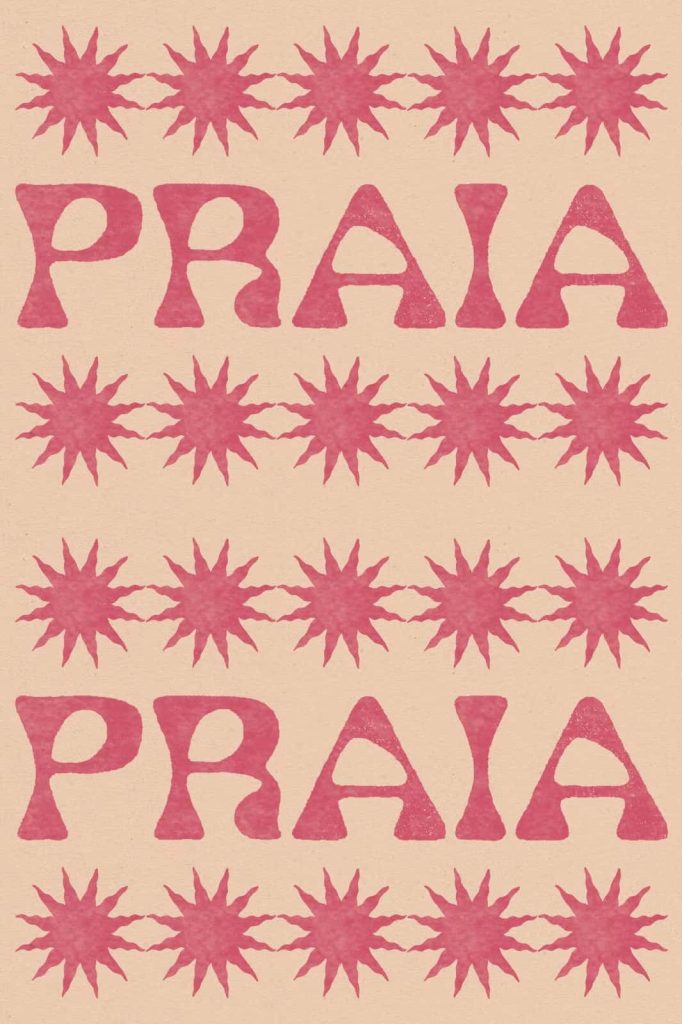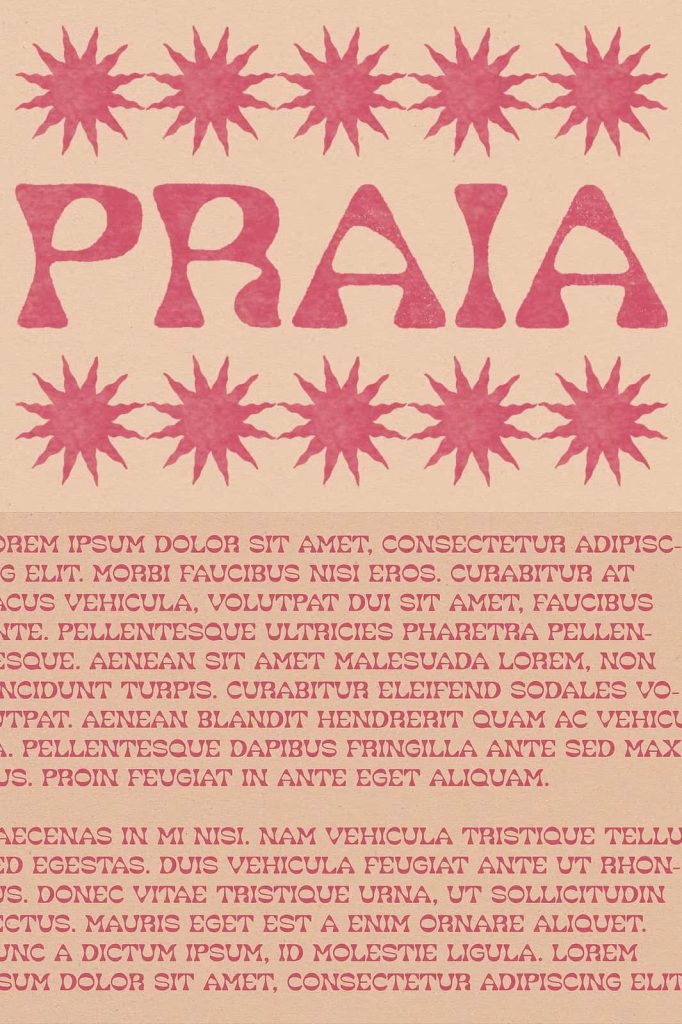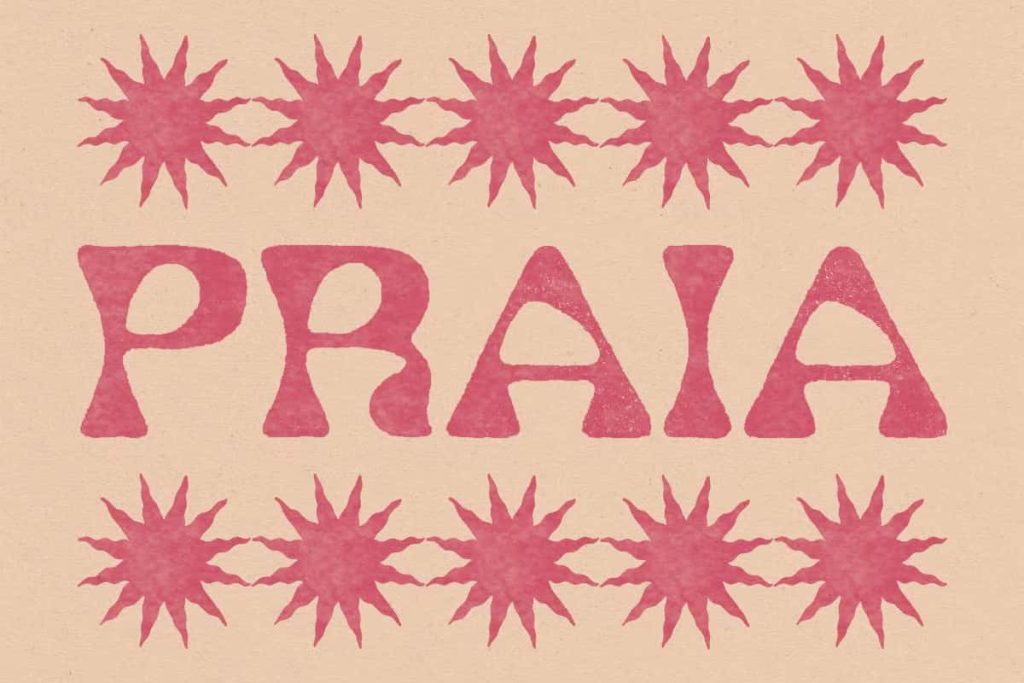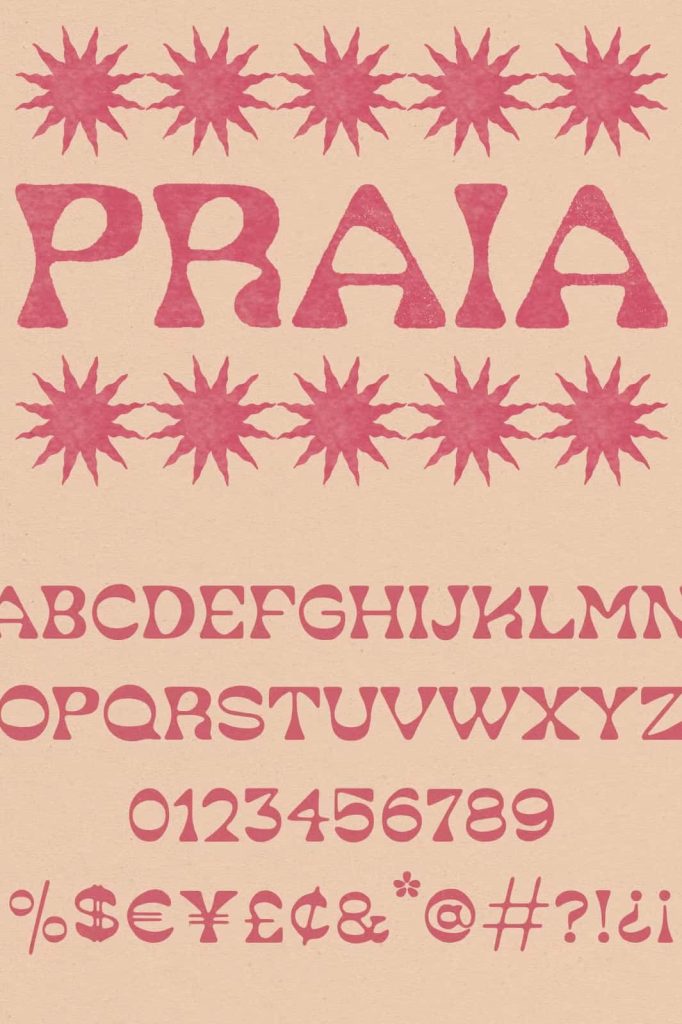
Praia Typeface: A Wavy Display Font Inspired by the Ocean
Praia Typeface captures the rhythm, movement, and calm beauty of the sea through its fluid and wavy letterforms. Inspired by the gentle ripples of water on a perfect beach day, this typeface brings a relaxed yet expressive energy into typography. Designers can use Praia to create visuals that feel light, natural, and effortlessly stylish.
This font does more than present text. It evokes a mood. Each letter reflects the motion of waves, creating a sense of flow that feels both organic and visually engaging. Praia transforms simple words into a design element that carries atmosphere and emotion.
What Makes Praia Typeface Unique?
Praia stands out because it embraces movement and contrast. The letterforms do not follow rigid lines. Instead, they curve and shift in a way that mimics the natural rhythm of water. This approach creates a dynamic visual effect that immediately draws attention.
The typeface also balances playfulness with structure. While the shapes feel free and fluid, they remain readable and cohesive. This combination allows designers to use Praia in a wide range of creative projects without sacrificing clarity.
Key Characteristics
- Wavy letterforms inspired by ocean ripples
- Fluid and organic shapes with natural movement
- Balanced contrast for readability and style
- Relaxed and playful visual tone
- Strong display presence for creative typography
A Typeface Inspired by Coastal Life
Praia reflects the feeling of spending time by the sea, where time slows down and creativity flows freely. The design captures the essence of beach culture, from sunlit afternoons to quiet moments by the shore. It invites designers to create work that feels open, relaxed, and full of character.
You can imagine this typeface on the sign of a small beach café, tucked away in a remote location. A place that opens when it feels right and serves whatever is fresh and available. This imagery adds personality to the font and makes it ideal for storytelling through design.
Why Beach-Inspired Fonts Work
- Evokes calm, freedom, and creativity
- Adds personality and atmosphere to designs
- Creates a connection with natural elements
- Enhances visual storytelling through mood
Best Use Cases for Praia Typeface
Praia works best in projects that aim to capture attention while maintaining a relaxed and artistic tone. Its unique shapes make it ideal for display purposes, where the goal is to create a memorable visual impression.
Ideal Applications
- Branding for beach cafés, resorts, and lifestyle brands
- Posters and promotional materials with a creative edge
- Social media graphics with a fresh and modern vibe
- Packaging designs that emphasize natural or coastal themes
- Editorial layouts that require expressive headlines
How to Use Praia Typeface Effectively
To get the most out of Praia, designers should focus on layout and spacing. The wavy shapes need room to breathe, so avoid overcrowding the design. Use the typeface in larger sizes to highlight its fluid details and movement.
Pair Praia with simple and clean fonts to create contrast. This combination allows the display font to stand out while maintaining overall readability. Thoughtful use of color and background can also enhance the ocean-inspired feel.
Design Tips
- Use large sizes to emphasize the wavy letterforms
- Combine with minimalist fonts for balance
- Apply soft or coastal color palettes for added mood
- Keep layouts open and uncluttered
Praia Typeface delivers a unique blend of movement, creativity, and coastal inspiration. Its wavy design and fluid structure make it an excellent choice for designers who want to create expressive and memorable visuals. This typeface transforms typography into an experience that reflects the rhythm and beauty of the sea.
By incorporating Praia into your projects, you can introduce a sense of calm, freedom, and artistic energy. It allows your designs to stand out while telling a story that feels natural, relaxed, and visually compelling.